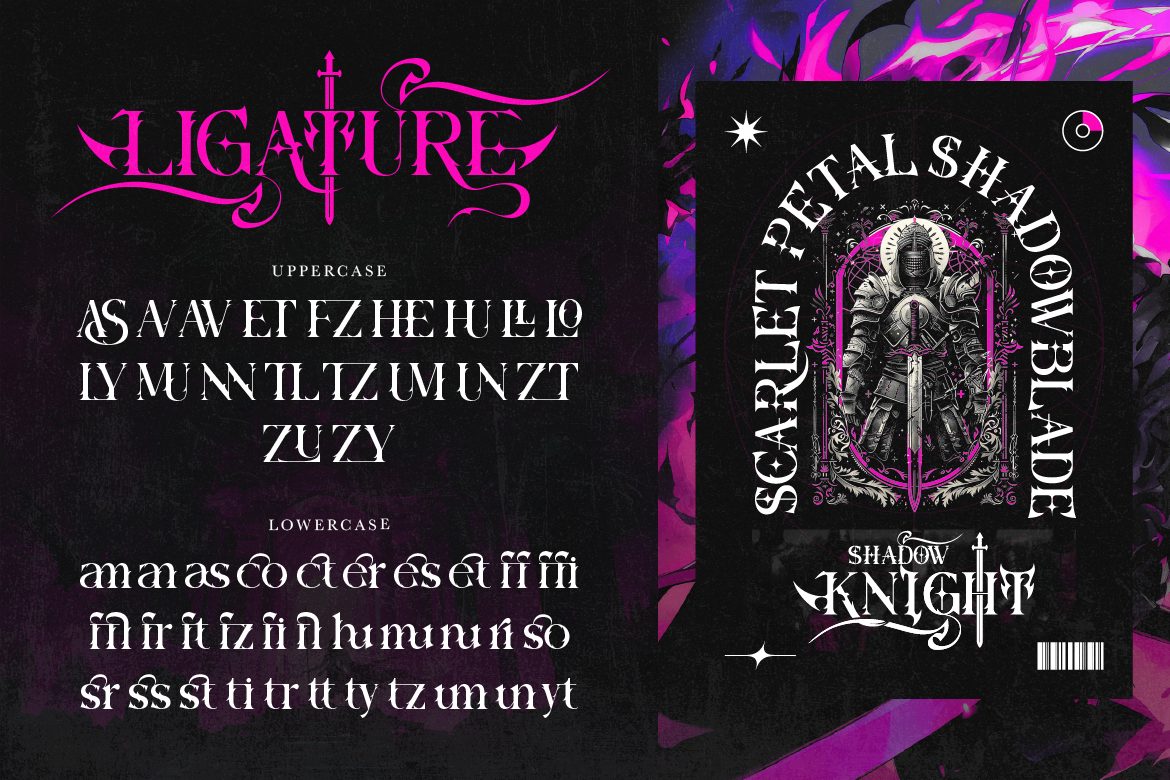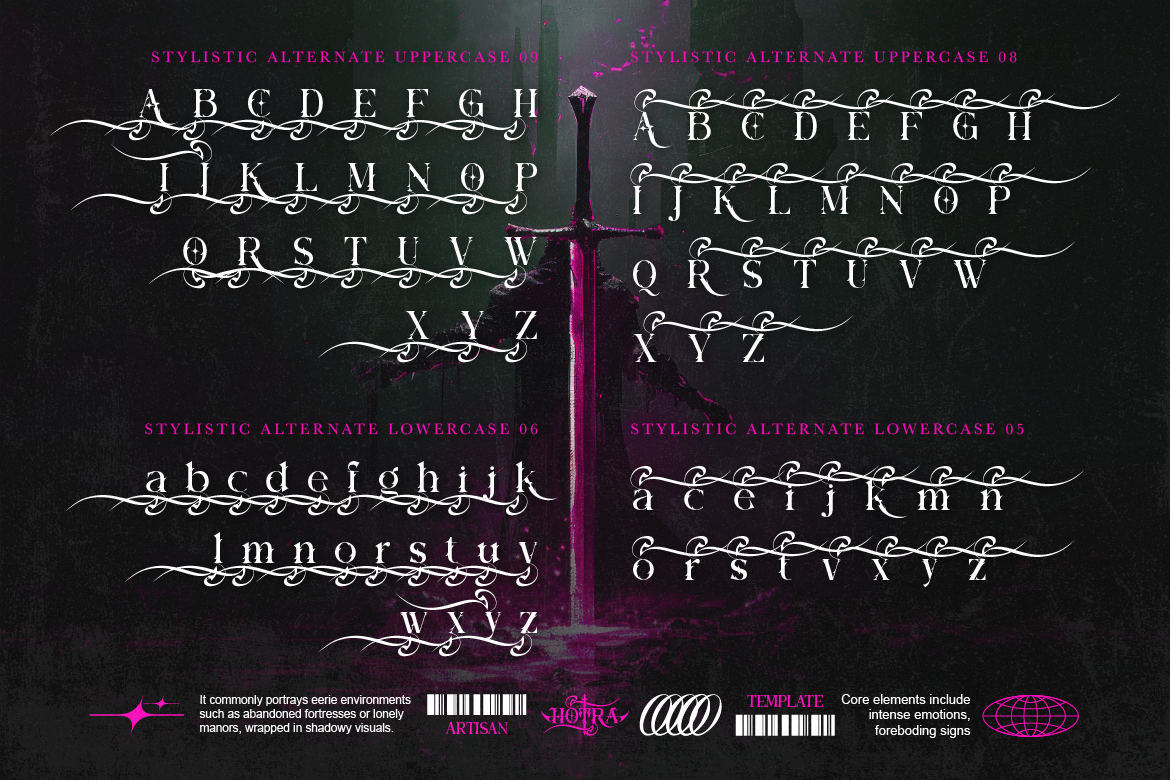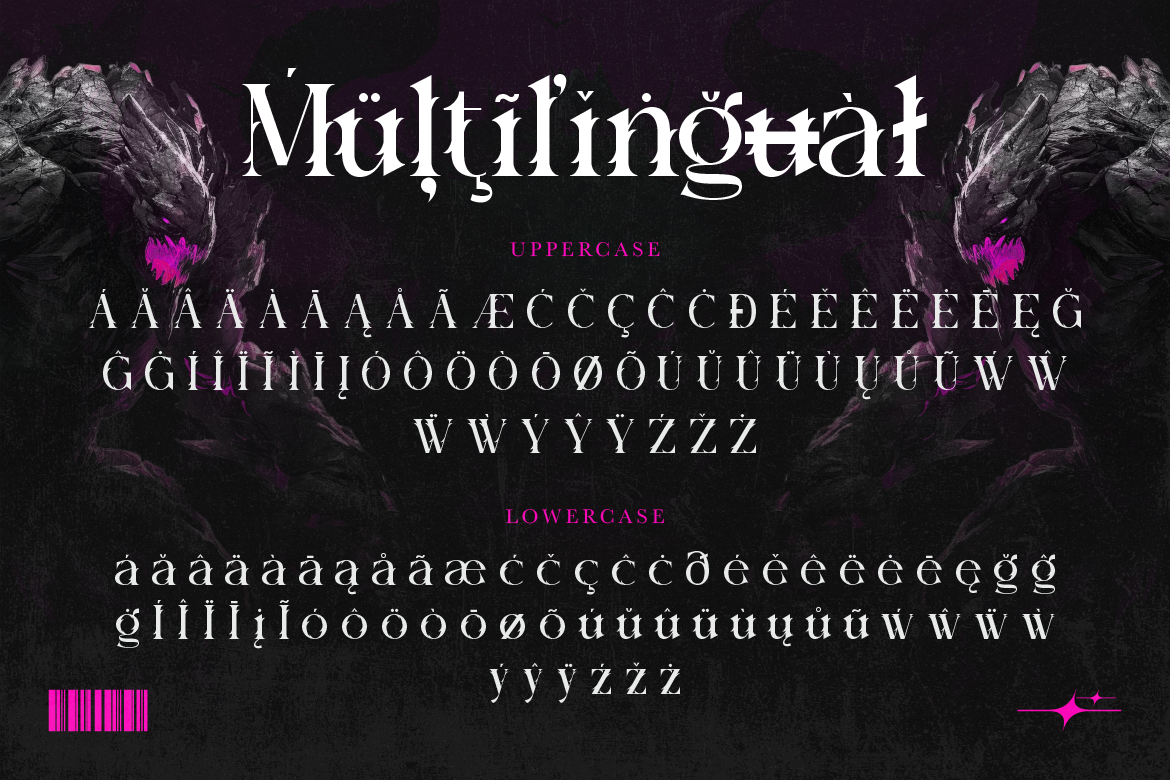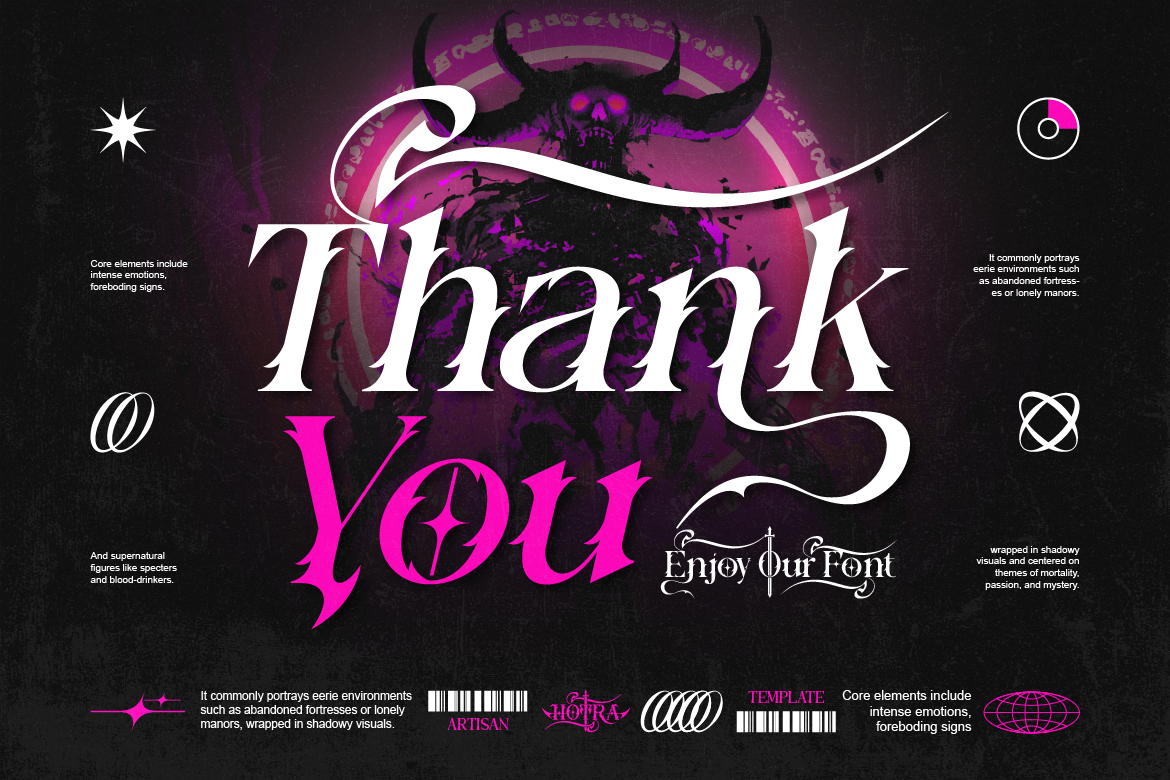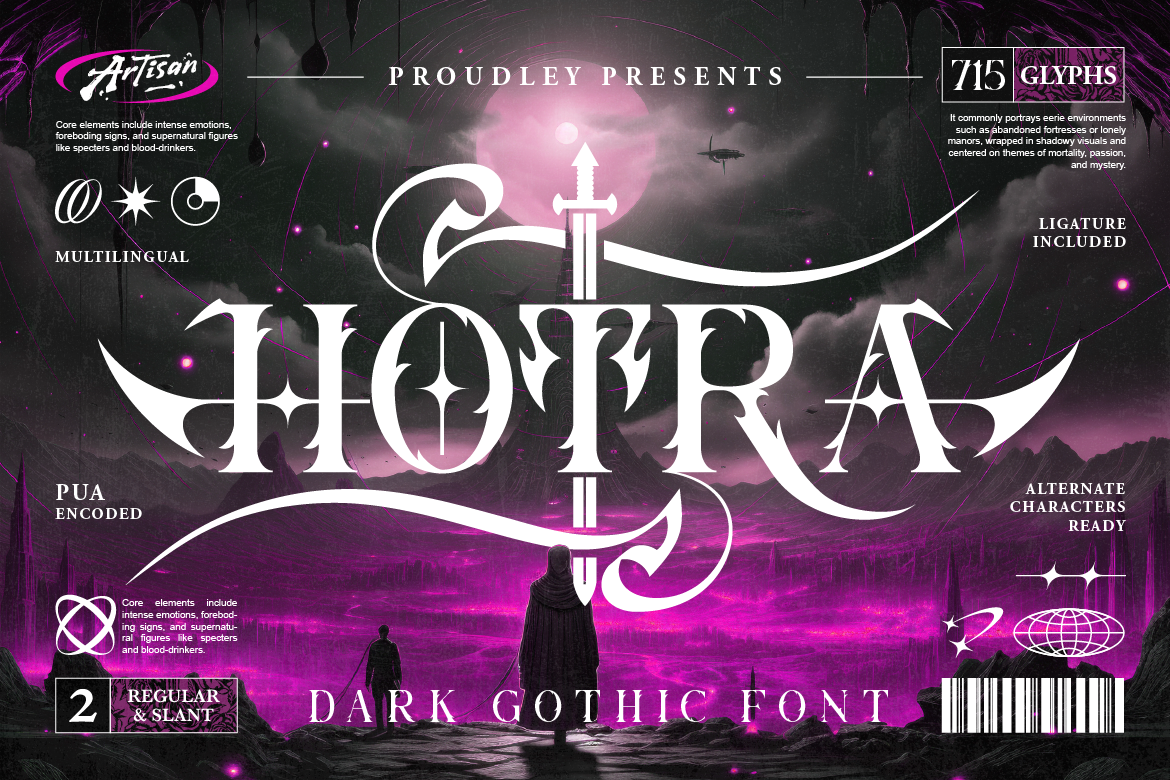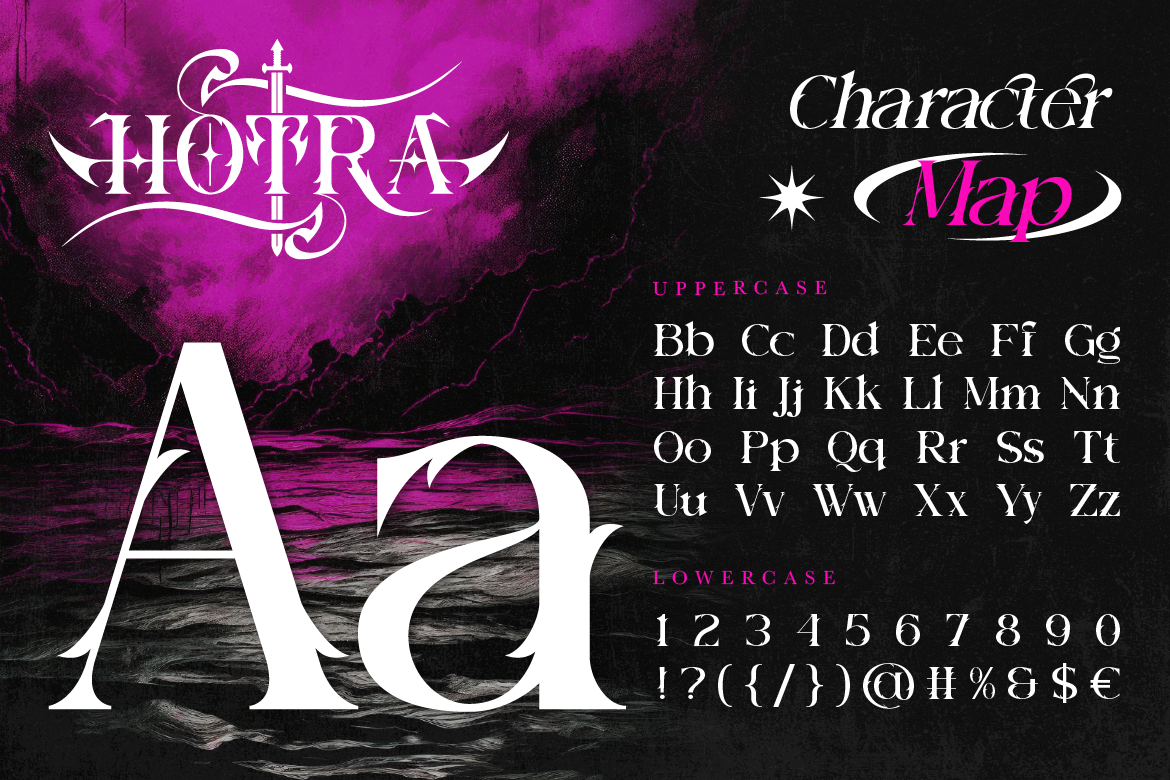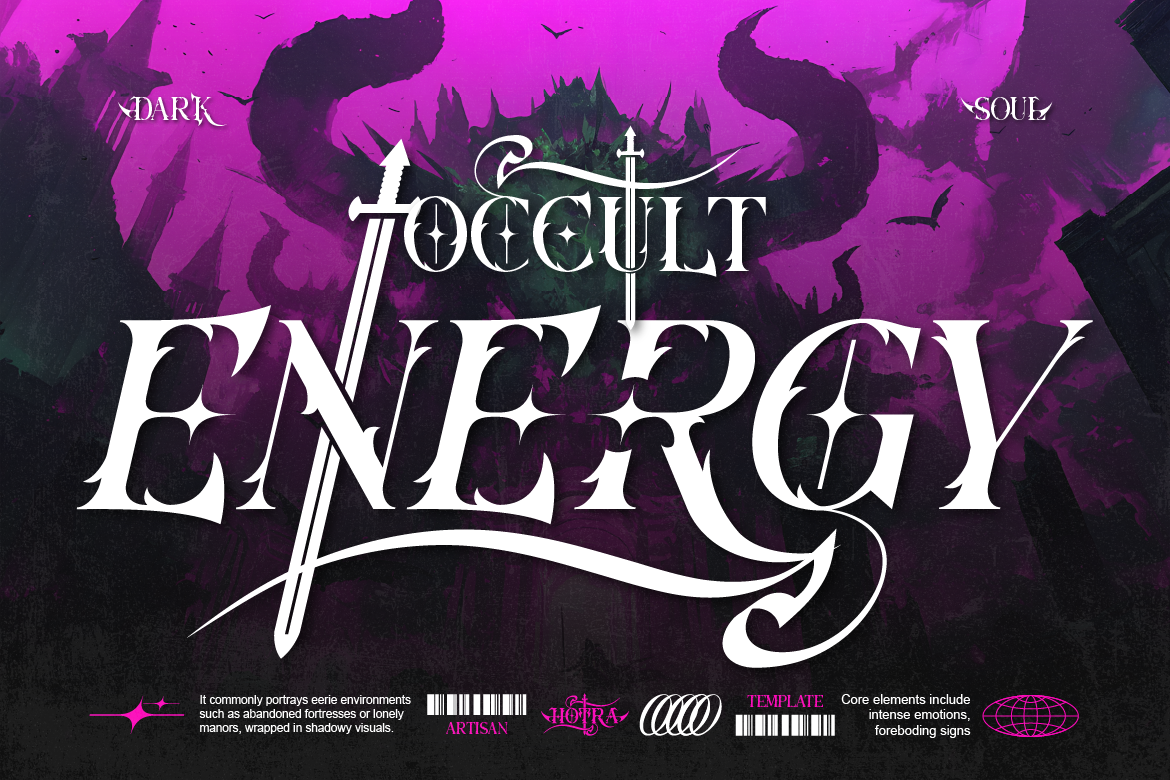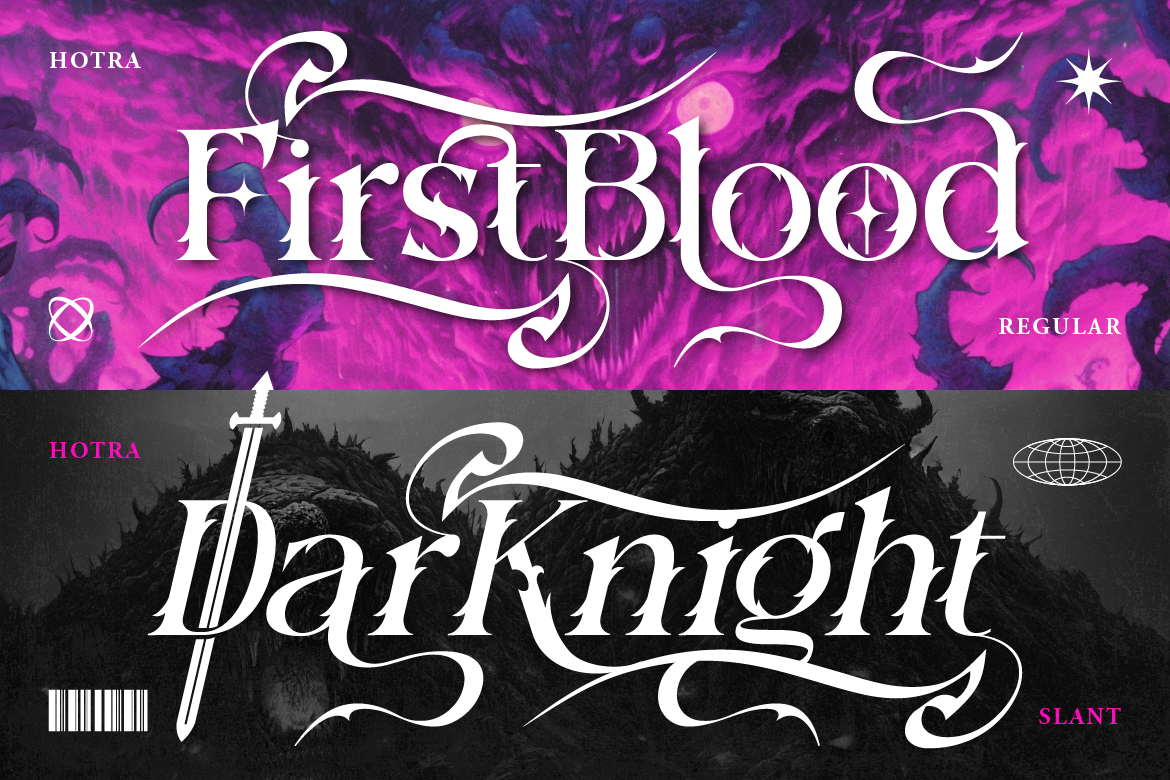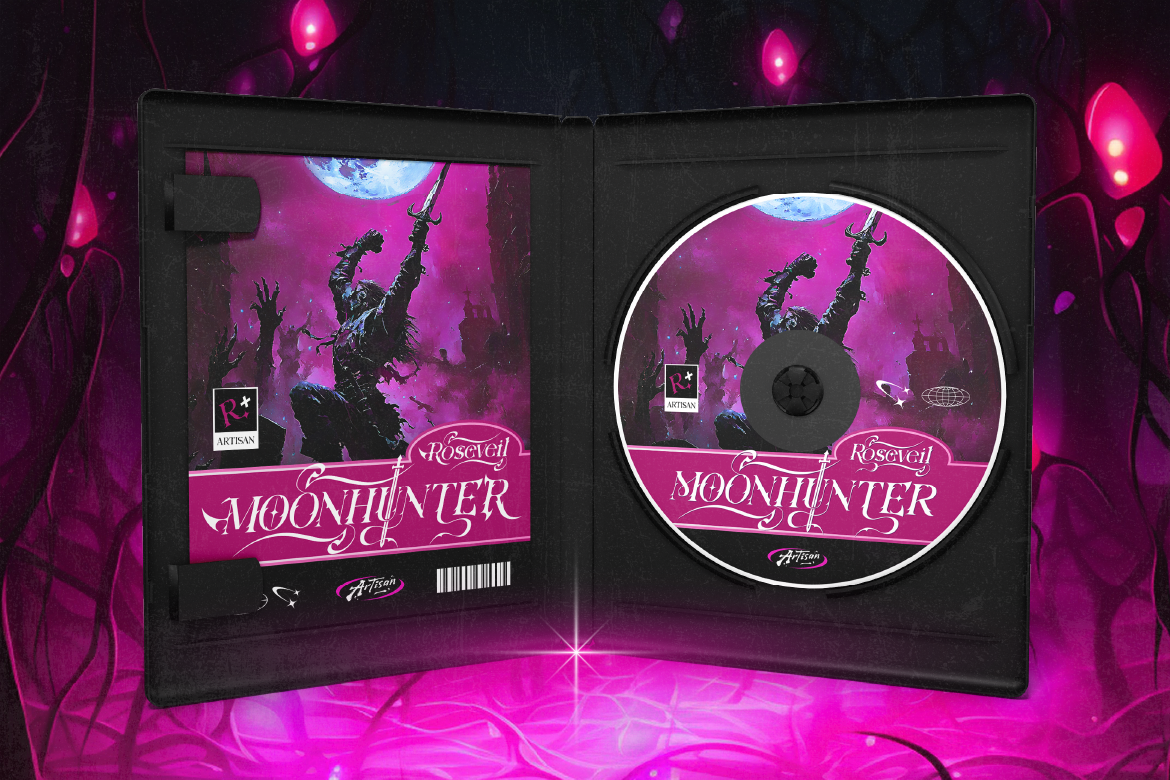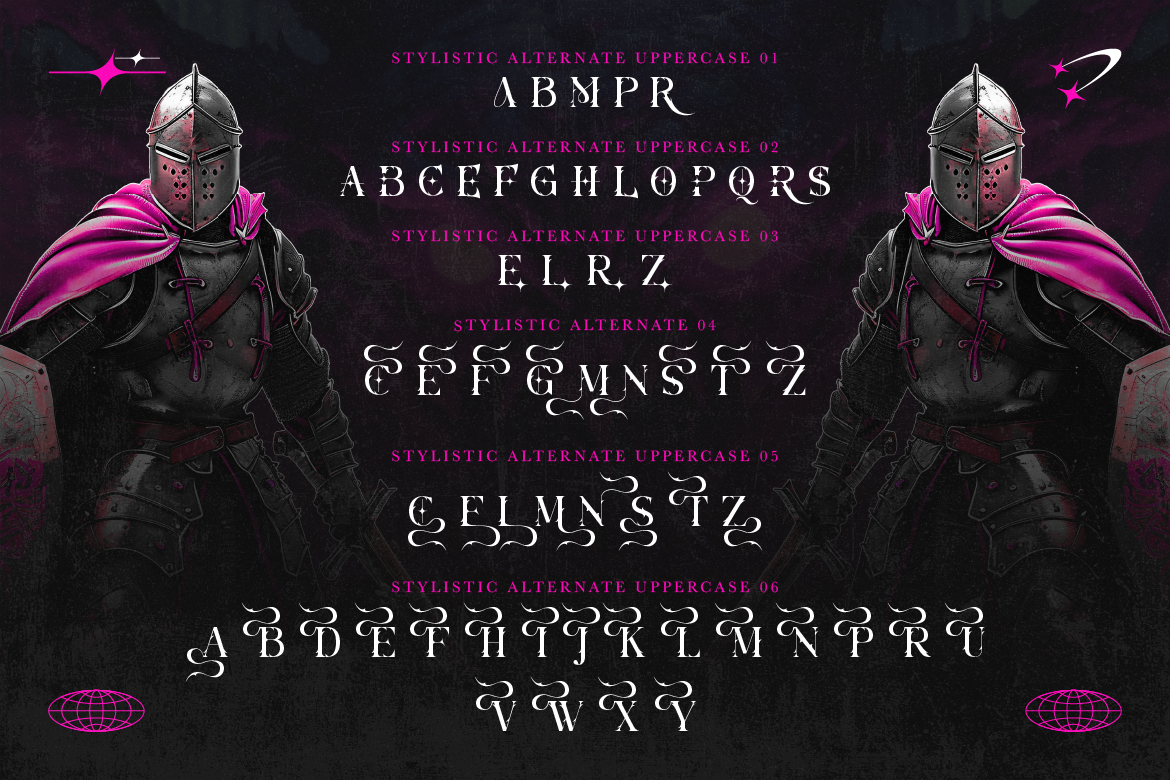
Hotra
Hotra is a dark gothic display font inspired by occult symbolism, medieval darkness, and mystical fantasy realms. It features sharp serifs, dramatic curves, and blade-like details that create a powerful, eerie, and mysterious visual presence.
This font comes with hundreds of glyphs, stylistic alternates, ligatures, and multilingual support, giving you full freedom to explore different letterforms and styles. From clean regular shapes to expressive alternates, Hotra is perfect for bold typography that needs strong character and visual impact.
Hotra works beautifully for dark fantasy logos, album covers, game titles, movie posters, book covers, apparel designs, branding, and mystical or gothic themed projects. Whether you want something aggressive, elegant, or mysterious, this font adapts effortlessly.
Perfect for:
• Gothic & Dark Fantasy Logos
• Occult and Mystical Branding
• Medieval & Fantasy Projects
• Movie Titles & Cinematic Posters
• Album Covers & Music Artwork
• Game Titles & Gaming Designs
• Book Covers (Horror, Fantasy, Dark Fiction)
• Apparel & Streetwear Designs
• Tattoo-Inspired Typography
• Editorial Headlines & Display Text
• Poster & Promotional Graphics
• Dark Aesthetic Social Media Content